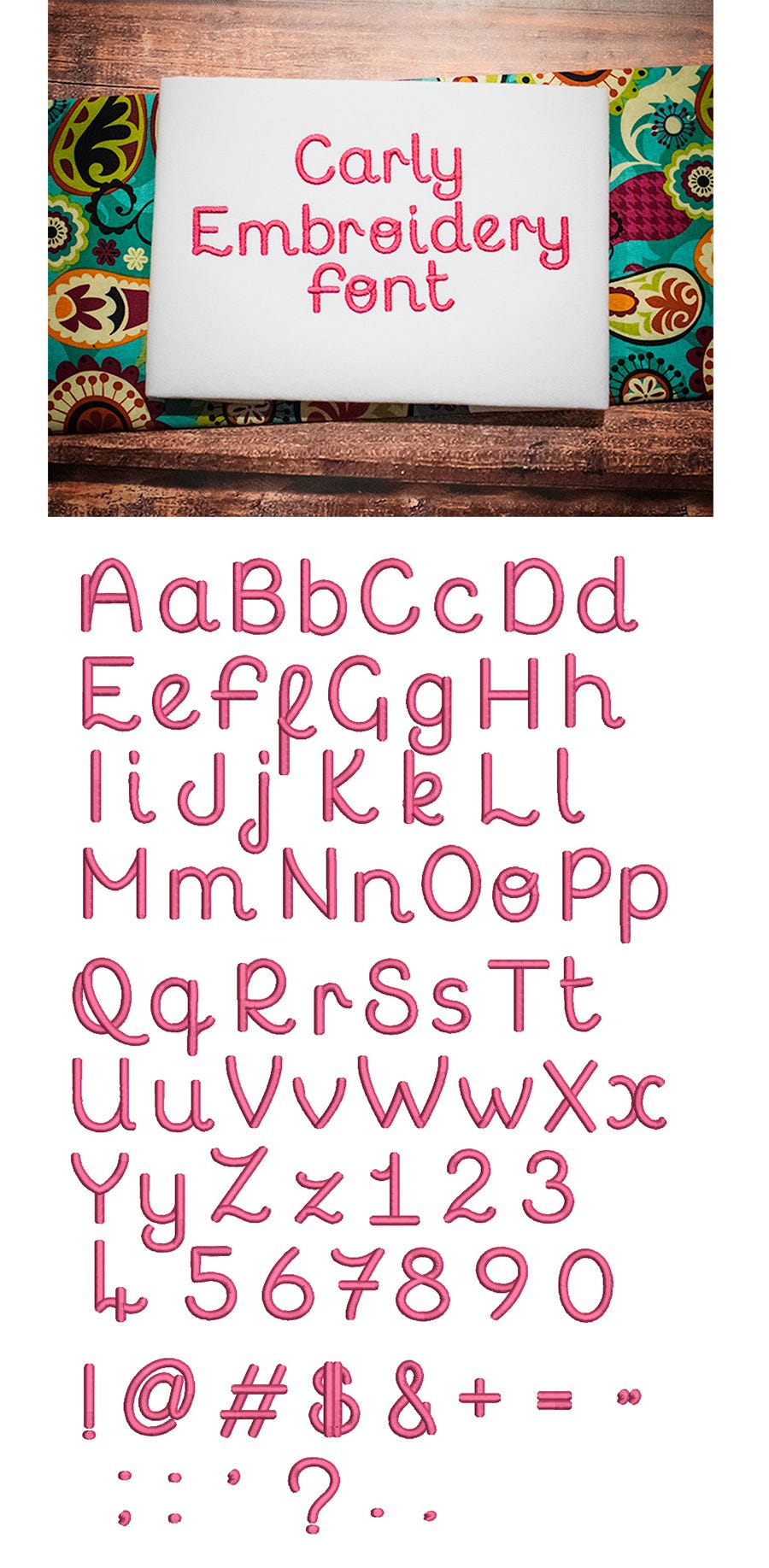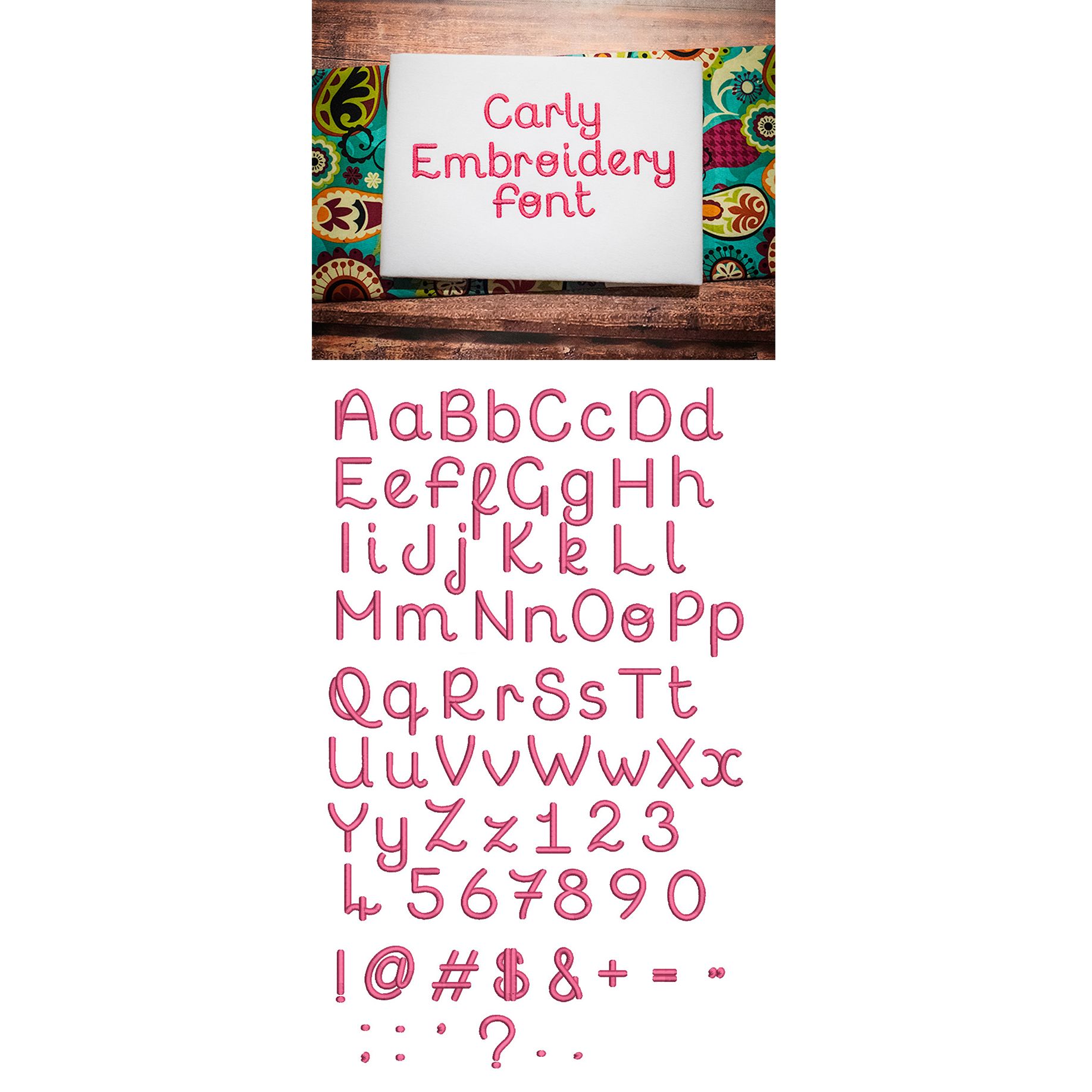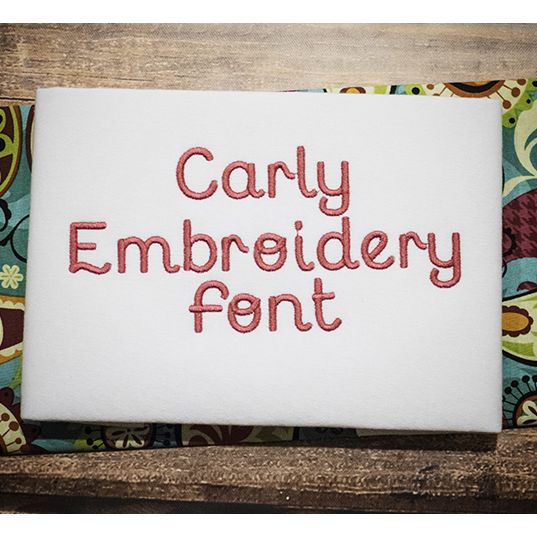
Carly Satin Stitch Embroidery Font
Simple and versatile upright cursive script font.  All of our font alphabets are 100% manually digitized to bring you maximum stitch quality.